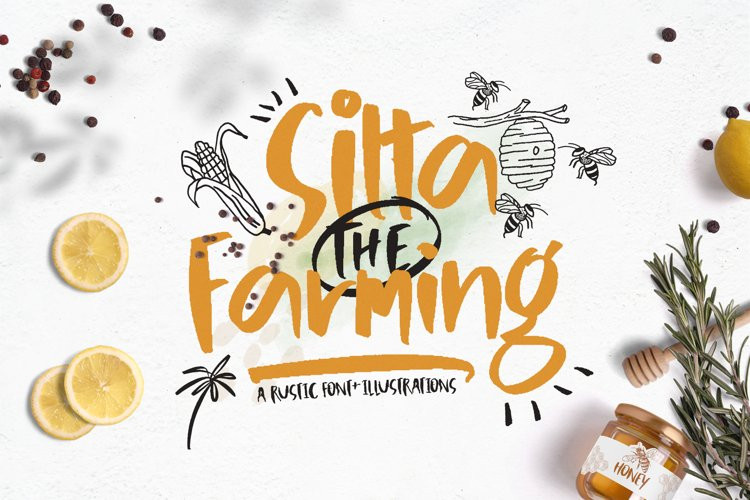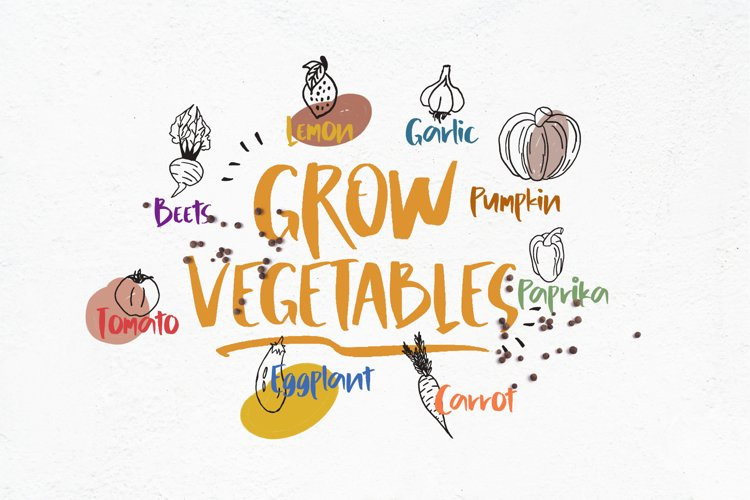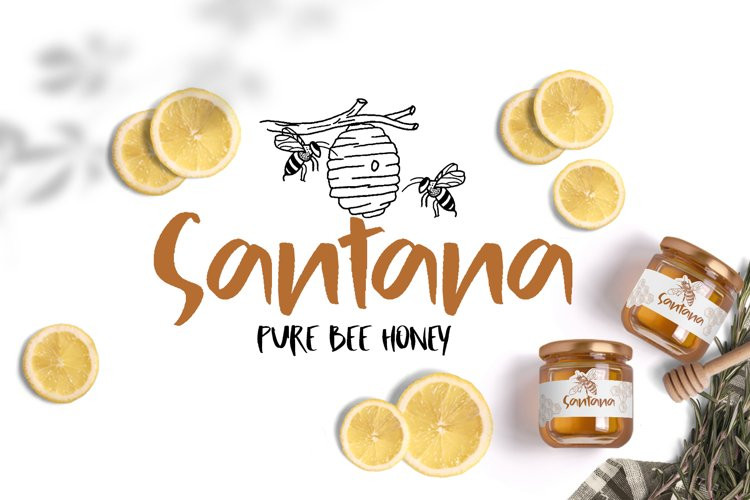
Silta the Farming Font
Silta the Farming FontSilta The Farming come with Regular style, it will make this typeface can be used in all design projects and works perfectly for pairing with Display typeface or script fonts, Headlines, Posters, Packaging, T-shirts, Postcards, Invitation, Wedding Sign, Sign Painting, Signboard, and much more.